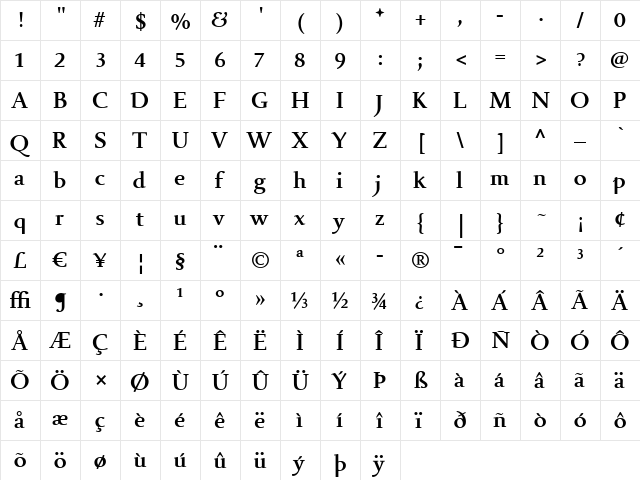
Beln Regular
Design Context for Beln Typeface
Beln is a composed and adaptable typeface that performs quietly and consistently across a wide range of design contexts.